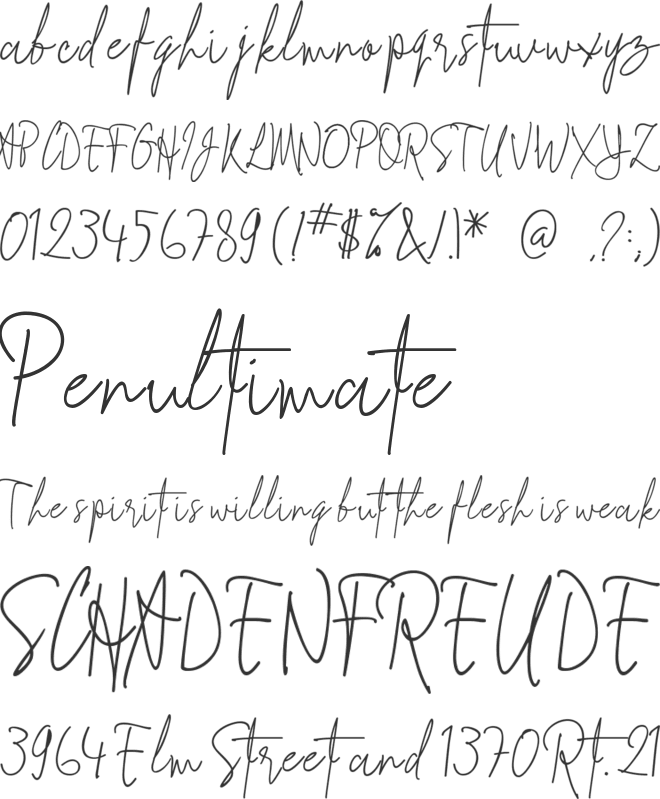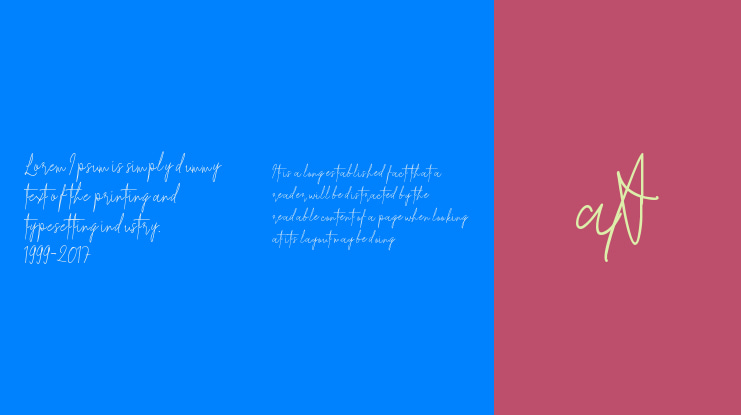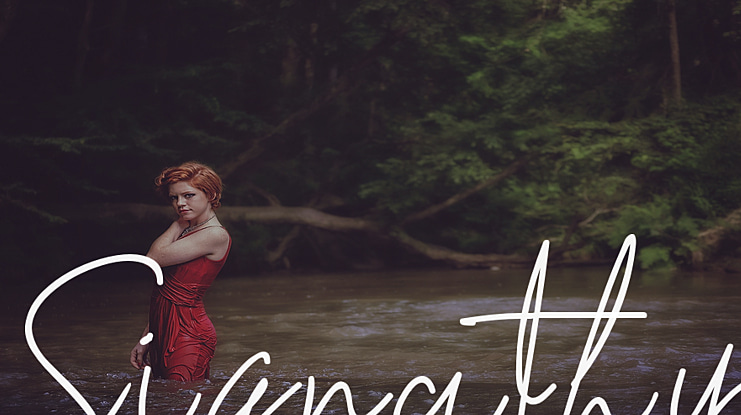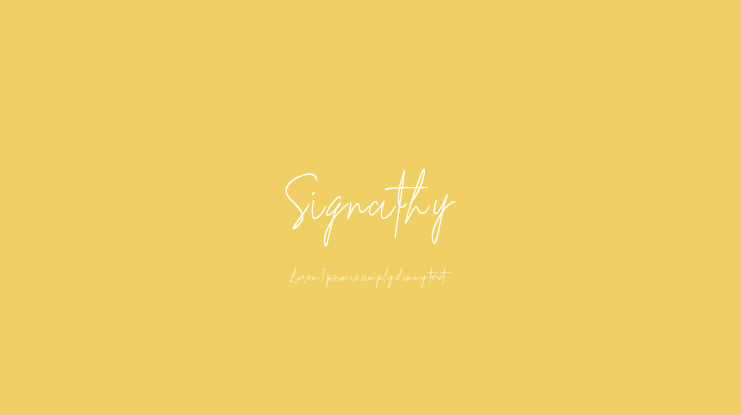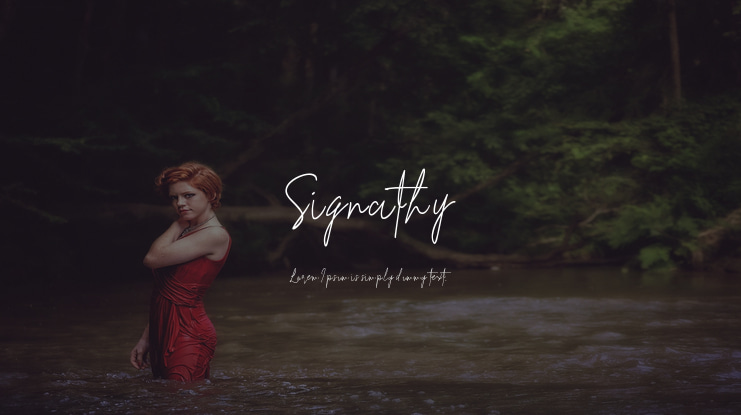
Signathy Font
Signathy Signature Font is elegant script font, a beautiful monoline consisting of a fashionable sophisticated signature style. Signathy has a natural writing style and will add a classy touch to your designs.
This font is perfect for branding, logo, designs, photography, wedding designs, advertising, packaging, label, watermark, stationery , invitation, etc.